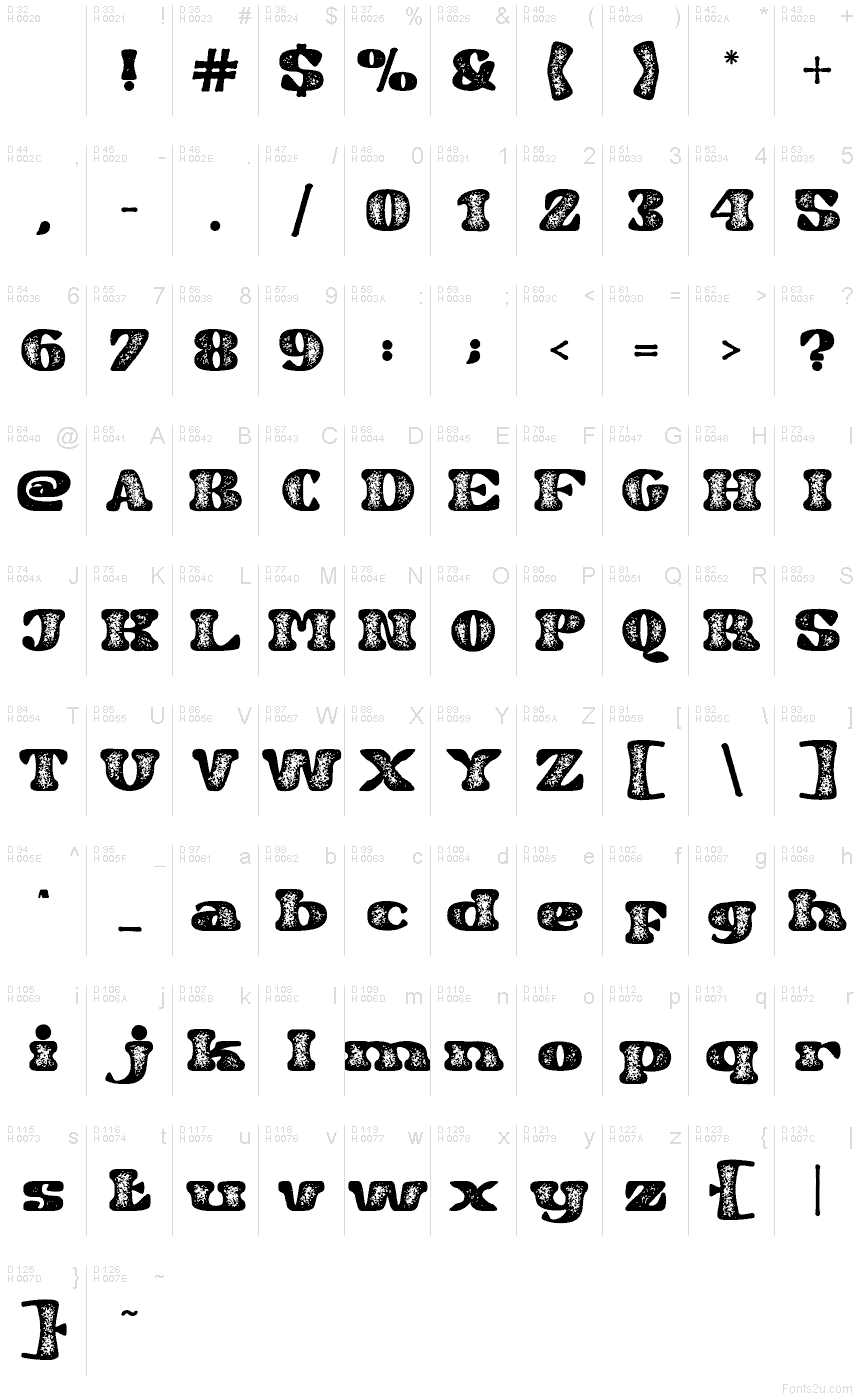
Antia Notario Texture
Antia Notario Texture font by PutraCetol Studio exudes a vintage feel, combining ornate and decorative elements for an eye-catching design. This bold, eroded style display font brings nostalgia and an artistic flair to any project, with expanded letters.
With its captivating style, the typeface would suit flyers, posters, book covers and jackets; websites; applications; greeting cards; exhibitions posters; labels; branding projects; or packaging design.